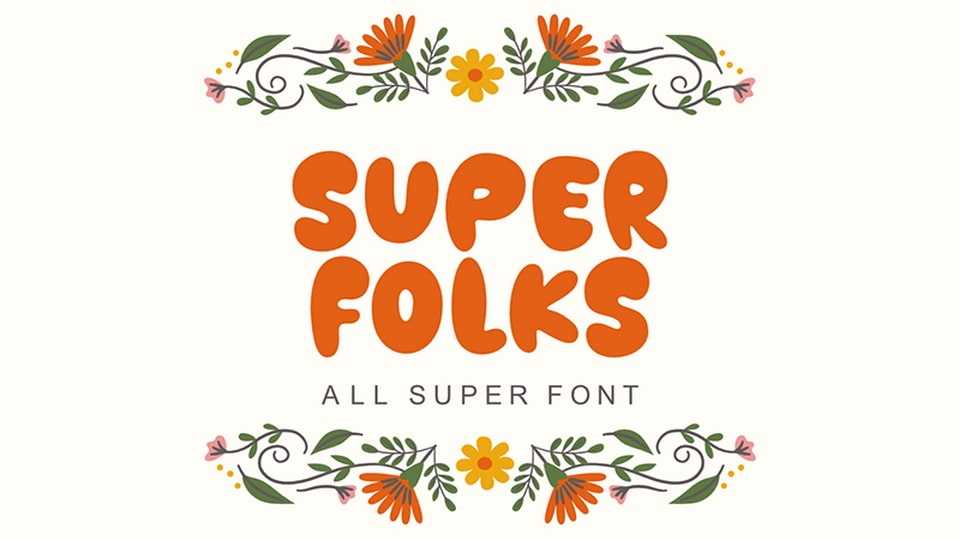
Download Super Folks font, a charming and cheerful hand-drawn typeface bursting with personality and warmth. With its rounded, slightly quirky letterforms and friendly vibe, this typeface brings a handmade, folksy charm to any design.